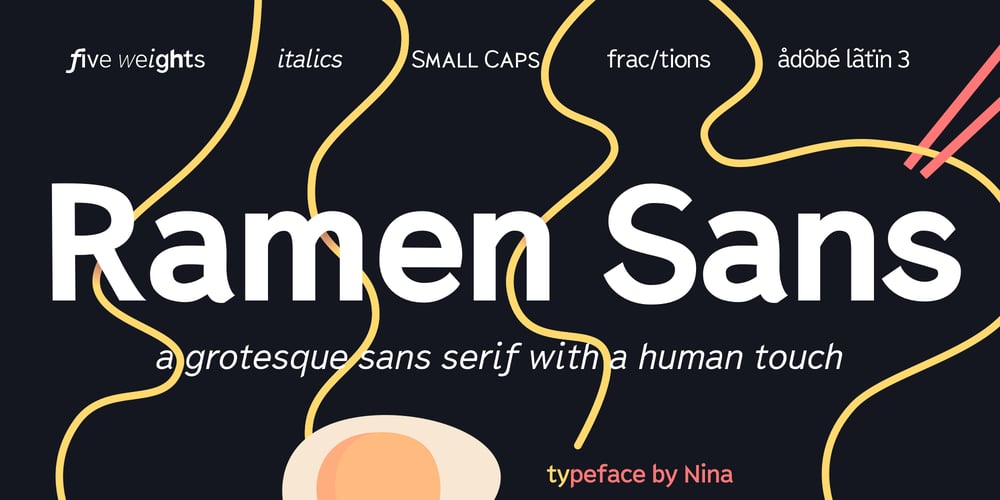
Ramen Sans
Ramen Sans font
Ramen Sans Font Family was designed by Nina Belikova and published by Nina Belikova. Ramen Sans contains 10 styles and family package options. Ramen Sans is a friendly grotesque type family with the warmth of serif types and a little bit of the edginess of geometric sans! Designed with body text in mind, it offers 5 weights (and their italics), small caps, tabular figures, fractions, numerators, denominators, and supports the Adobe Latin 3 character set (most western and central European languages).